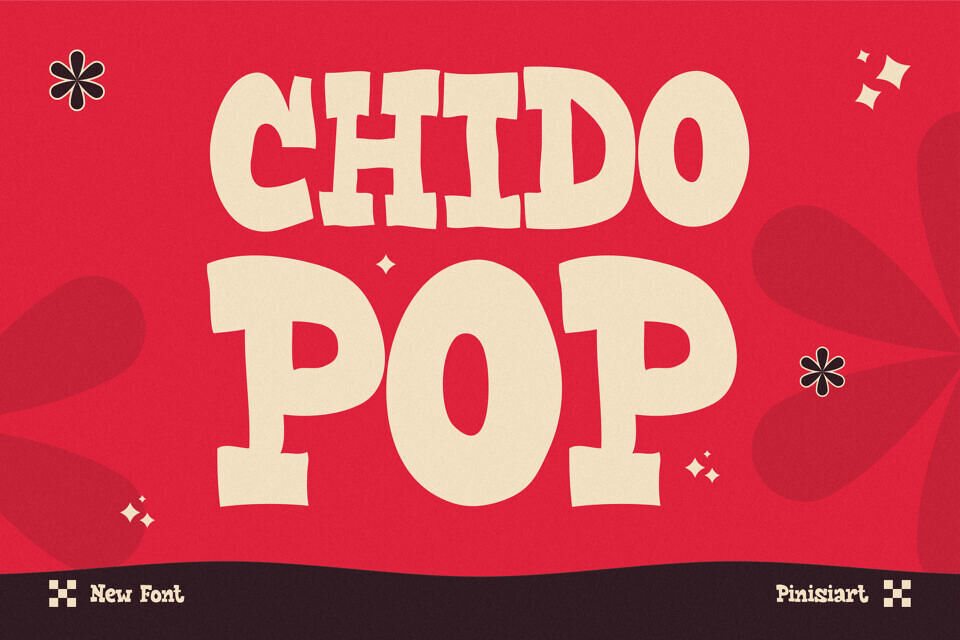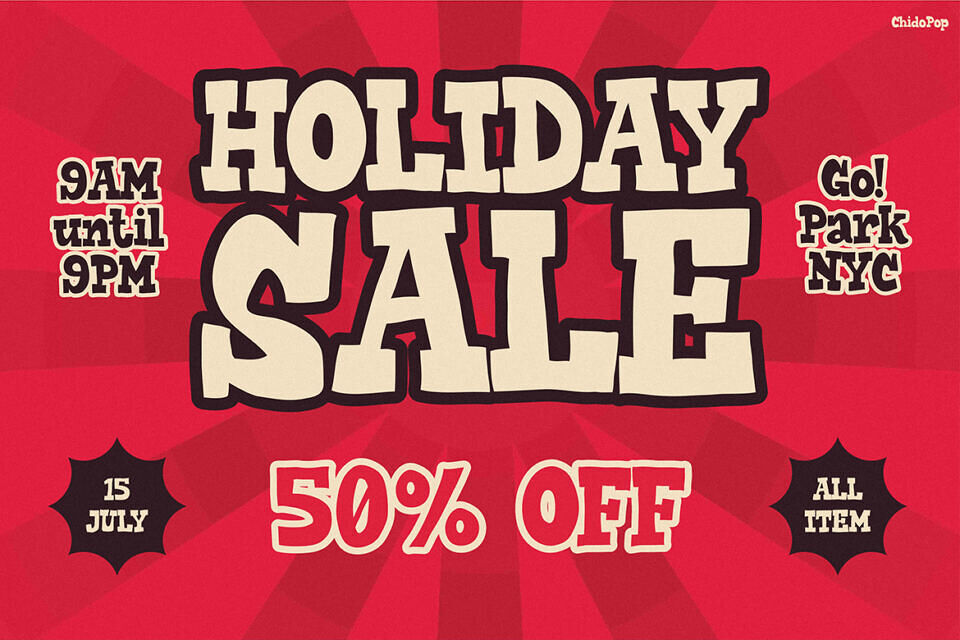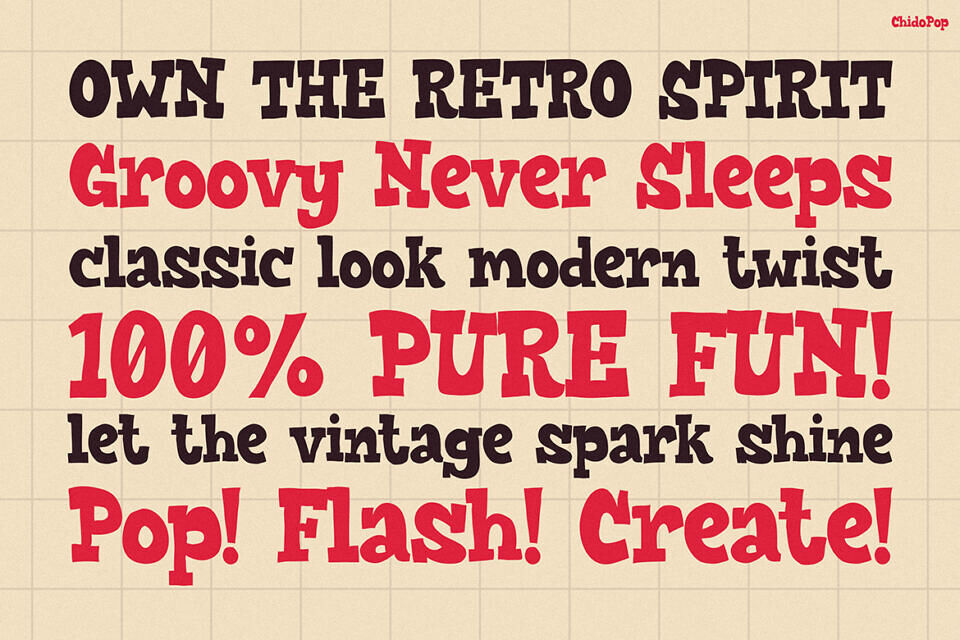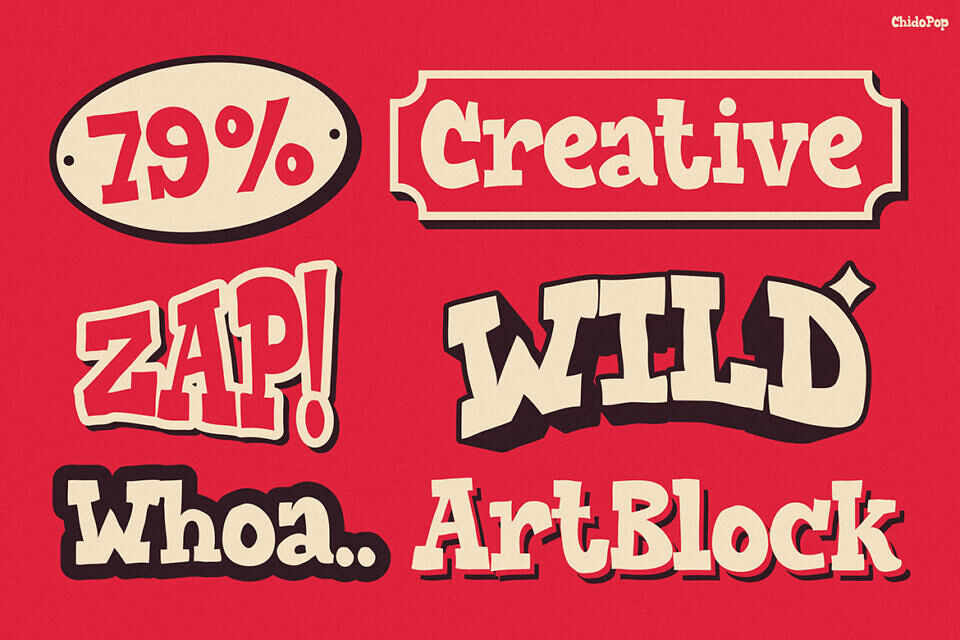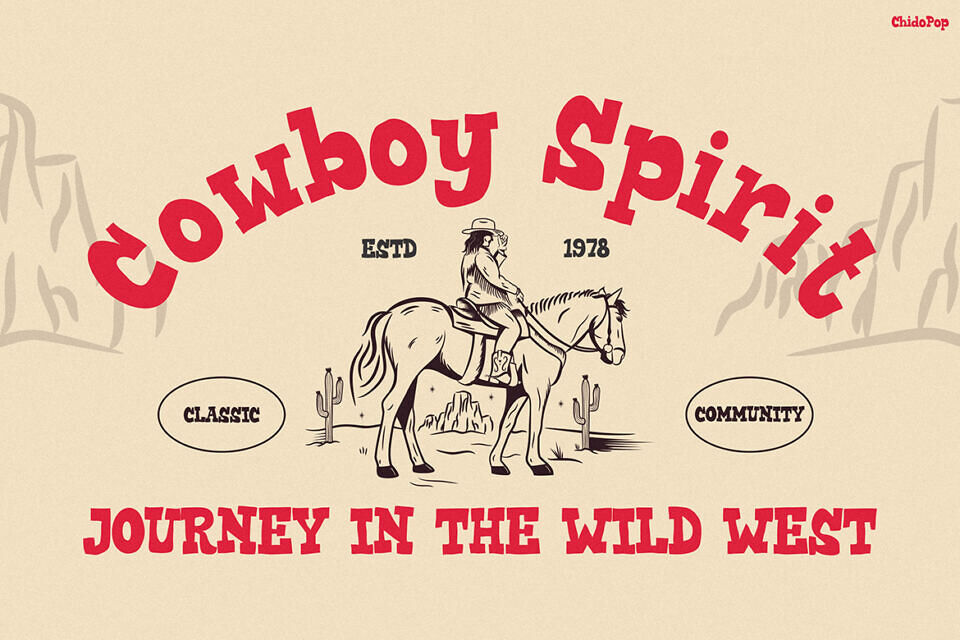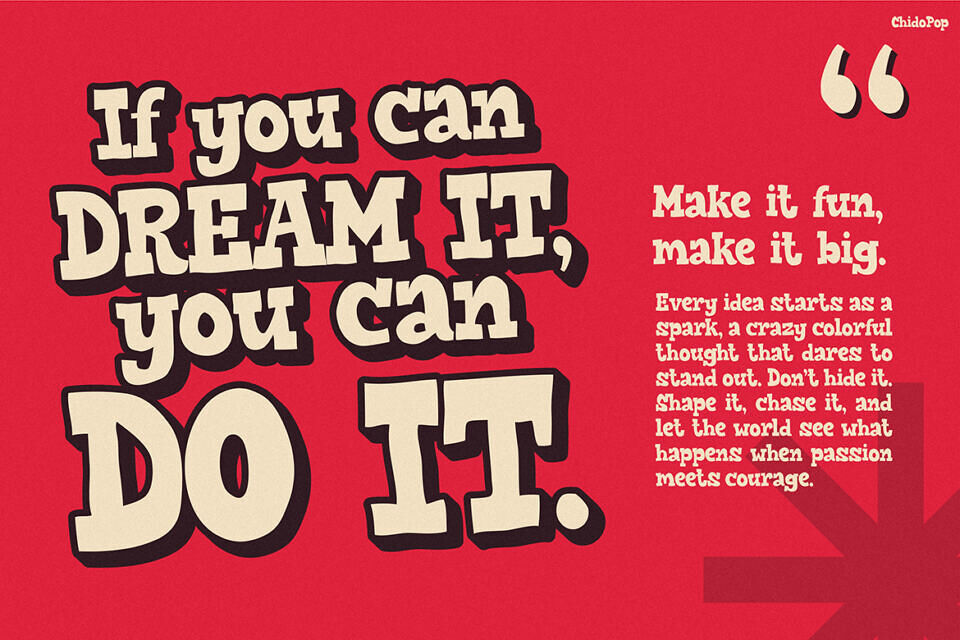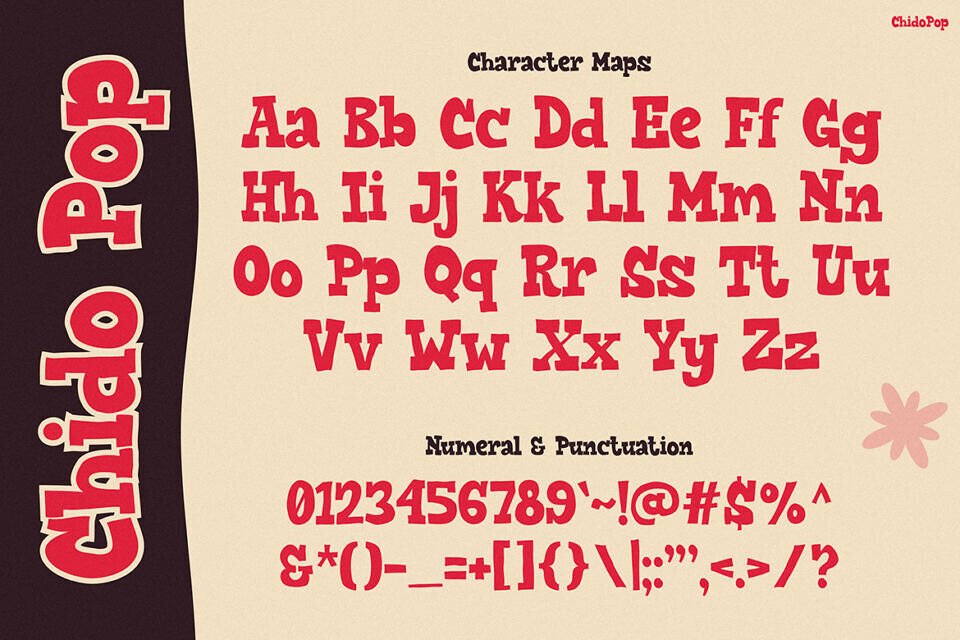
Chido Pop is a vibrant, hand-drawn typeface that infuses every design with warmth, energy, and creativity. Inspired by retro lettering, it blends nostalgic charm with a modern playful twist. Each curve feels natural and expressive, making it ideal for projects that need personality and authenticity.
Perfect for kids’ branding, posters, and cheerful headlines, Chido Pop balances fun with readability. Its rounded edges and organic shapes bring a friendly, handcrafted touch — transforming simple text into an engaging and memorable visual experience.